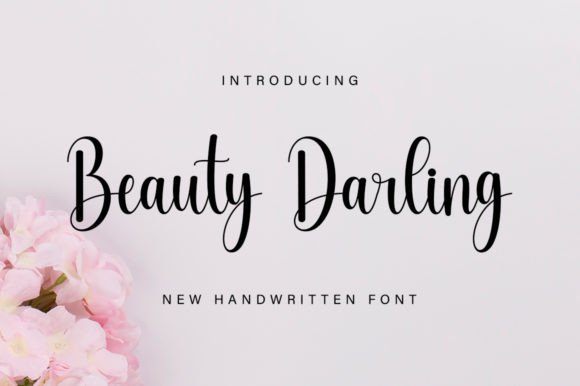
Welcome to the realm of Beauty Darling Font, where elegance and charm intertwine to create a visual masterpiece. This enchanting script font, the brainchild of the talented DN Creative, exudes a natural handwritten flair, captivating audiences with its timeless allure.
Immerse yourself in the world of Beauty Darling, where each letter dances across the page, evoking sentiments of love, joy, and heartfelt emotions. Its delicate strokes, reminiscent of a gentle caress, breathe life into words, transforming them into works of art.
Unleash the creative possibilities with Beauty Darling, the perfect font for adding a touch of personal elegance to your projects. Whether you're crafting heartfelt wedding invitations, designing logos that speak volumes, or creating marketing materials that leave a lasting impression, Beauty Darling is your trusted companion.
Explore the versatility of Beauty Darling, a font that knows no bounds. Its graceful curves and effortless flow make it ideal for a myriad of applications, from wall displays that command attention to social media posts that captivate followers. Let Beauty Darling elevate your designs, adding a touch of magic to every project.